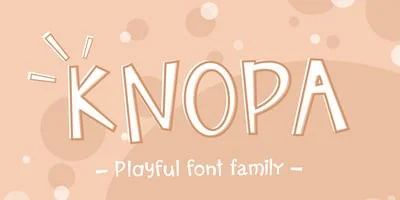
Knopa Font
The Knopa Font excels in various design applications including interactive button design, digital interface branding, user experience communications, modern app development marketing, clickable element signage, responsive web design materials, software interface identities, digital navigation promotions, interactive media projects, and contemporary technology projects that demand button functionality and digital sophistication.
What makes the Knopa Font exciting is its innovative embodiment of interactive design and digital functionality through letterforms that capture the essence of clickable elements and the intuitive appeal of user-friendly interfaces. This typeface demonstrates exceptional usability through carefully engineered characters that suggest the responsive nature of digital buttons, the clear communication of interactive elements, and the modern functionality that defines excellent user experience design. The font's interactive personality makes it perfect for technology companies and digital agencies seeking to communicate user-friendly design, interactive excellence, and the kind of intuitive functionality that creates seamless digital experiences through typography that literally functions like interactive elements.
The Knopa Font family typically includes responsive weight variations that enhance the digital aesthetic, featuring clean proportions and extended character sets optimized for interface design and digital communications. These family options often include button-inspired alternates, interactive symbols, and digital decorative elements that provide designers with comprehensive tools for creating authentically functional typography that celebrates user experience excellence while maintaining contemporary design appeal and digital credibility.
Digital design professionals and technology organizations consistently choose Knopa Font for projects requiring typography that communicates interactive functionality and digital excellence. This typeface delivers exceptional performance in app marketing, interface branding, and digital communications where establishing usability and demonstrating user-friendly design is essential for user engagement. The font's button character makes it particularly effective for web and mobile applications. Download Knopa Font today to access this functional typeface that transforms digital communications with its interactive sophistication and button elegance, creating compelling user experiences that demonstrate the highest standards of digital design excellence while maintaining the intuitive functionality that defines truly responsive interface design.